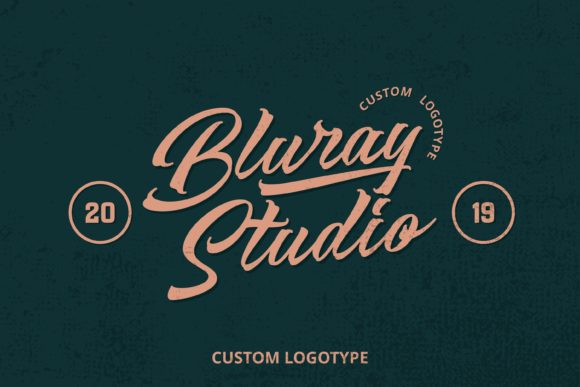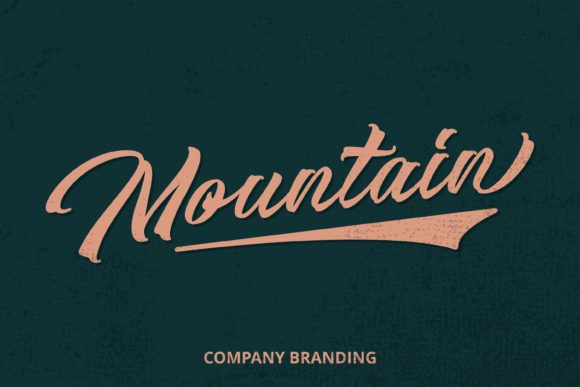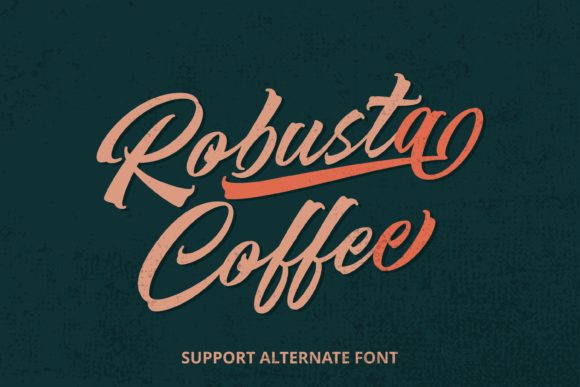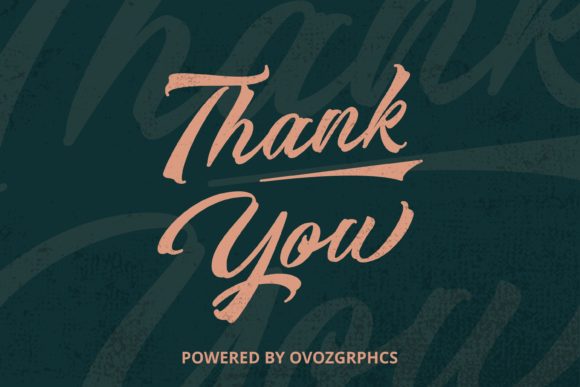
Introducing Backend Font: Elevate Your Designs with a Unique Handwritten Style
Are you tired of using the same old fonts in your design projects? Do you want to add a touch of personality and whimsy to your creations? Look no further than Backend Font, a stunning and cool handwritten font that’s sure to make your designs stand out from the crowd.
What is Backend Font?
Backend Font is a carefully crafted handwritten font that boasts a unique feel and style. Its distinctive characters and flowing lines make it perfect for adding a personal touch to any design project. Whether you’re working on a logo, branding materials, or marketing collateral, Backend Font is sure to bring a fresh and creative perspective to your work.
Key Features of Backend Font
- Unique and Handwritten Style: Backend Font features a one-of-a-kind handwritten style that’s sure to capture attention and leave a lasting impression.
- Highly Versatile: This font is perfect for a wide range of design projects, from logos and branding materials to social media graphics and marketing collateral.
- Easily Readable: Despite its unique style, Backend Font is highly legible and easy to read, making it perfect for use in both digital and print applications.
- Scalable: Backend Font is designed to look great at any size, from small icons to large billboards.
Why Choose Backend Font?
With so many fonts to choose from, why should you choose Backend Font for your next design project? Here are just a few compelling reasons:
- Adds Personality to Your Designs: Backend Font’s unique style and feel make it the perfect way to add a touch of personality to your designs and stand out from the crowd.
- Perfect for Creative Projects: If you’re working on a creative project, such as a logo or branding materials, Backend Font is the perfect choice.
- Great for Digital and Print Applications: Whether you’re designing for digital or print, Backend Font is highly legible and easy to read, making it perfect for use in a wide range of applications.